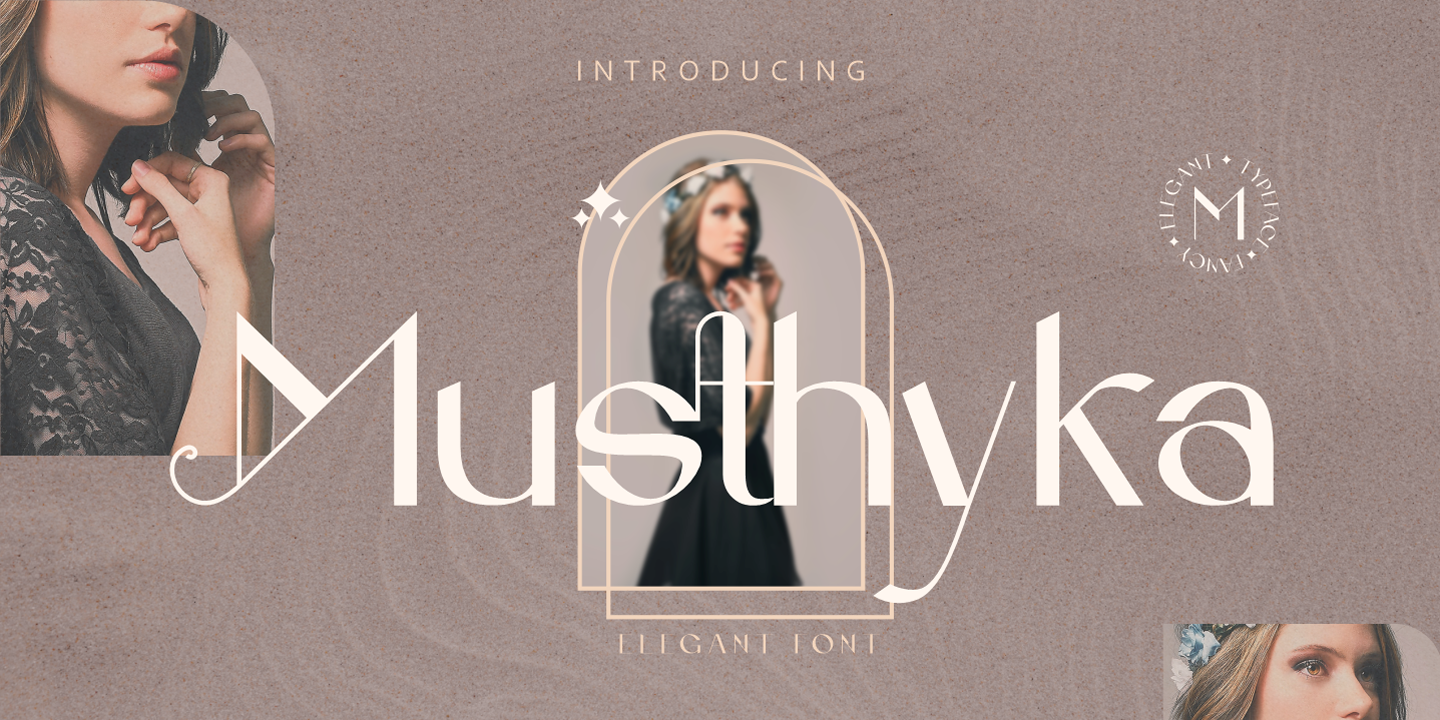
Musthyka Font is perfect for exotic travel branding, cultural heritage projects, mystical spiritual content, ancient wisdom publications, traditional craft marketing, ethnic restaurant identities, meditation center communications, cultural festival materials, artisanal product packaging, and authentic cultural celebration designs. This distinctive typeface excels in environments where cultural authenticity and mystical sophistication are essential for creating meaningful connections with diverse spiritual communities.
What makes Musthyka Font exciting is its captivating fusion of ancient wisdom traditions with contemporary design functionality, creating letterforms that seem to carry the sacred knowledge and spiritual depth of timeless cultural practices. The font features flowing, mystical characteristics with subtle spiritual influences that convey wisdom, authenticity, and the profound connection between ancient traditions and modern consciousness. This sacred aesthetic makes it ideal for brands seeking to communicate spiritual authenticity, cultural respect, and the transformative power of ancient wisdom traditions.
Musthyka Font family includes Light, Regular, Medium, Bold, Mystical, Sacred, Traditional, and Enlightened variants. Each style maintains the font's distinctive spiritual character while offering different levels of mystical intensity and cultural expression, enabling designers to create authentic wisdom-inspired compositions that celebrate spiritual heritage and cultural authenticity across various sacred applications.
The Musthyka Font Free Download offers designers access to a premium spiritually-inspired typeface that embodies the spirit of ancient wisdom and cultural authenticity. This font's mystical aesthetic and sacred qualities make it particularly valuable for spiritual organizations, cultural institutions, and wisdom-focused businesses seeking to establish genuine connections with audiences who appreciate traditional practices and spiritual depth.
Cultural design professionals appreciate the font's ability to instantly communicate wisdom, authenticity, and spiritual sophistication. The letterforms' mystical characteristics and sacred-inspired details create profound connections that modern commercial fonts cannot achieve, making it essential for projects requiring distinctive spiritual personality and cultural appeal.
When working with Musthyka Font, designers can create compelling visual narratives that resonate with spiritual seekers and cultural heritage enthusiasts. The font's mystical character makes it especially effective for brands in spiritual wellness, cultural preservation, traditional arts, and wisdom education where authentic spiritual credibility and cultural sensitivity are crucial for meaningful engagement.
For digital applications, Musthyka Font maintains its distinctive mystical qualities across different platforms while ensuring readability in modern spiritual contexts. Its optimized character spacing preserves the sacred flow essential for authentic cultural appeal.
Spiritual marketing agencies consistently select Musthyka Font for projects requiring genuine cultural appeal and mystical authenticity, where conventional typography cannot capture the desired wisdom and spiritual sophistication that defines contemporary spiritual culture and ancient wisdom preservation movements.